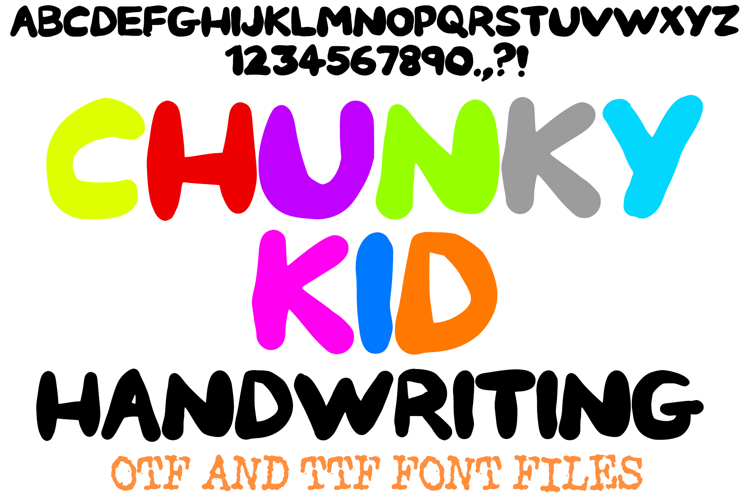
Chunky Kid Handwriting Lettering ABC Font Typeface Alphabet
Infuse your designs with a delightful burst of playful charm and authentic innocence using Chunky Kid Handwriting Font! This wonderfully approachable typeface perfectly captures the whimsical essence of a child's enthusiastic handwriting, featuring bold, rounded shapes that evoke the natural strokes of a beloved marker or crayon. It's more than just a font; it's an instant dose of happy nostalgia, designed to bring a touch of playful warmth and genuine character to any creative project.
Each character in Chunky Kid Handwriting Font is crafted with a clear, solid presence and a charming, slightly irregular hand-drawn feel, as if penned by a joyful child. Its bubbly, organic forms make it an ideal choice for children's books, nursery decor, educational materials, playful branding, cheerful greeting cards, or any design calling for a unique blend of simplicity and cuteness.
Whether you're creating invitations for a birthday party, designing labels for kid-friendly products, crafting engaging social media posts, or adding a creative touch to classroom resources, this font will bring an undeniable sense of fun, originality, and a handmade aesthetic to your work. Its clear yet playful forms ensure readability while delivering a memorable visual experience.
If you're looking to infuse your designs with a sense of playful wonder, charming authenticity, and an undeniable happy vibe, Chunky Kid Handwriting Font is your ultimate tool. Grab your crayons and let your creativity shine!